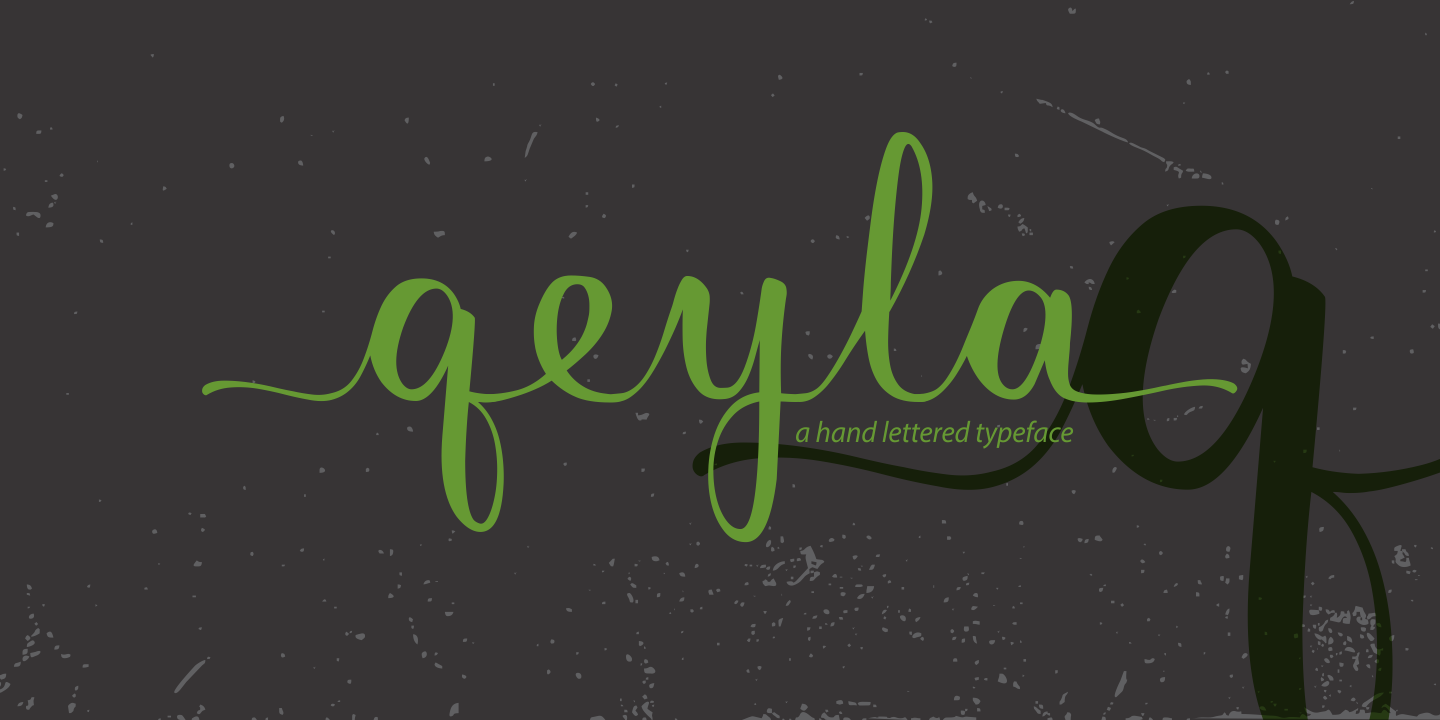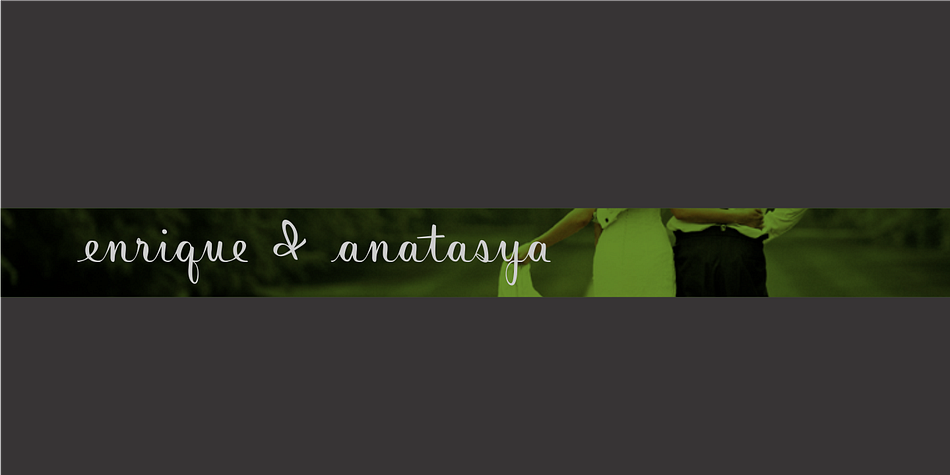
Qeyla Script is a script font published by Decavantona.
Qeyla Script is a hand lettered font which combines simplicity and beauty.
It can be used for titling, signatures, logos, correspondence, wedding invitations, letterheads, signage, labels, newsletters, posters, badges, and many other applications.